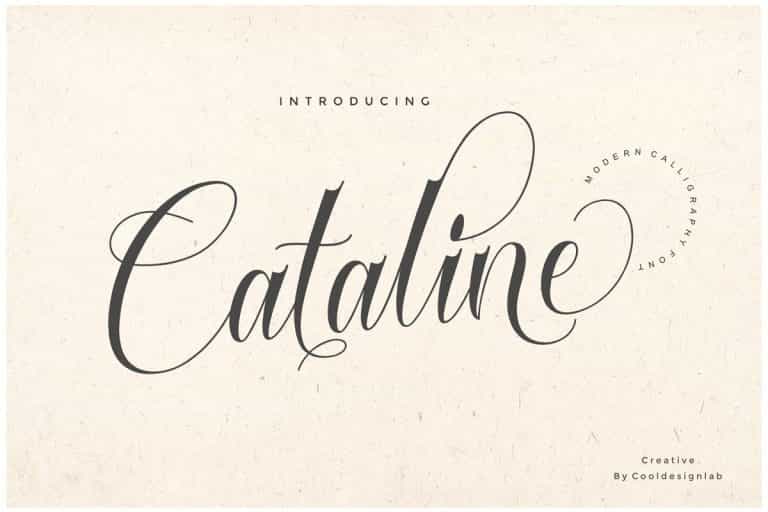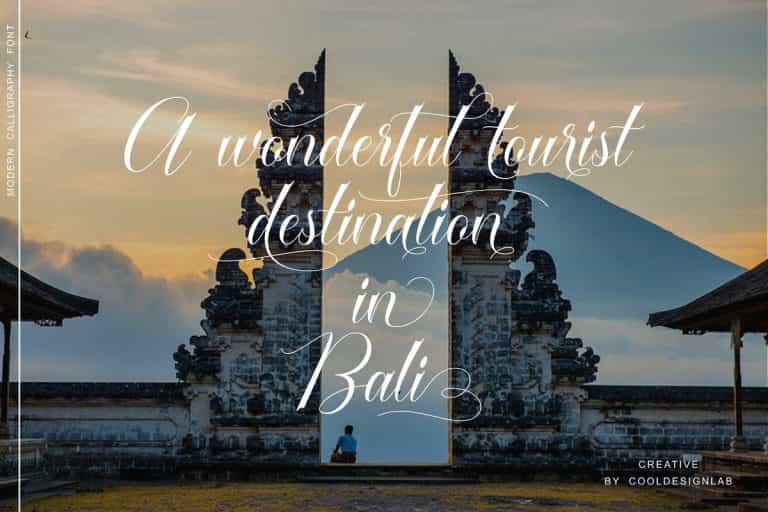
Discover Cataline Script Font, part of the Calligraphy collection—a versatile and unique font perfect for adding a personal touch to your projects. Download it for free and enjoy crafting designs with style, from invitations to social media posts. This font is available exclusively for personal use, giving you the freedom to create without limits. Unlock your creativity with Cataline Script Font today!
Introducing Cataline font! Cataline Script Font a new and modern script that has the handmade calligraphy style, decorative characters and a dancing baseline. Thus, its beauty will be seen on the invitation like greeting cards, branding materials, business cards, quotes posters and many more.